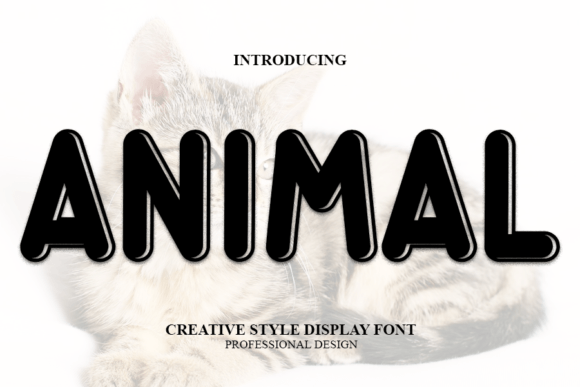
The Ultimate Font for Creative Projects: A Deep Dive into Animal Font
I’ll never forget the time I was working on a project for a client who needed a unique and eye-catching font for their branding. I spent hours scouring the internet for the perfect font, but nothing seemed quite right. That was until I stumbled upon Animal Font. This cool and modern display font has since become my go-to for all sorts of creative projects, from crafts to digital design, presentations, and even greeting cards.
An Honest Review of Animal Font
So, what makes Animal Font so special? Let’s dive into the good stuff and some of the quirks I’ve discovered.
What I Love About Animal Font ✨
- ✅ Unique and eye-catching design: Animal Font has a distinctive style that’s sure to make your projects stand out.
- ✅ Versatile: Whether you’re working on a digital project or a physical craft, this font adapts beautifully.
- ✅ Easy to read: Despite its unique design, Animal Font is surprisingly easy to read, even in smaller sizes.
- ✅ OpenType features: This font comes with a range of OpenType features, including glyphs and stylistic alternates, which give you even more creative control.
- ⚠️ Limited use in body text: While Animal Font is amazing for headings and titles, it’s not the best choice for body text due to its display nature.
- ⚠️ Some characters may require manual adjustment: Depending on the word or phrase you’re typing, you might need to manually adjust the spacing or kerning for optimal results.
The Backstory Behind Animal Font
Animal Font was designed with the intention of creating a bold and eye-catching display font. The designer aimed to craft a font that could be used across various mediums, from digital screens to print materials. Inspired by the wild and free-spirited nature of animals, the font embodies a sense of adventure and creativity.
Q: What type of projects is Animal Font best suited for?
A: Animal Font is ideal for projects that require a bold and eye-catching font, such as headings, titles, and display text. It’s perfect for crafts, digital design, presentations, and greeting cards.
Q: Does Animal Font support OpenType features?
A: Yes, Animal Font comes with OpenType features, including glyphs and stylistic alternates, which allow for more customization and creative control.
Q: Is Animal Font suitable for body text?
A: While Animal Font is primarily designed as a display font, it’s not the best choice for body text due to its bold and stylized nature. It’s recommended to use it for headings and titles.